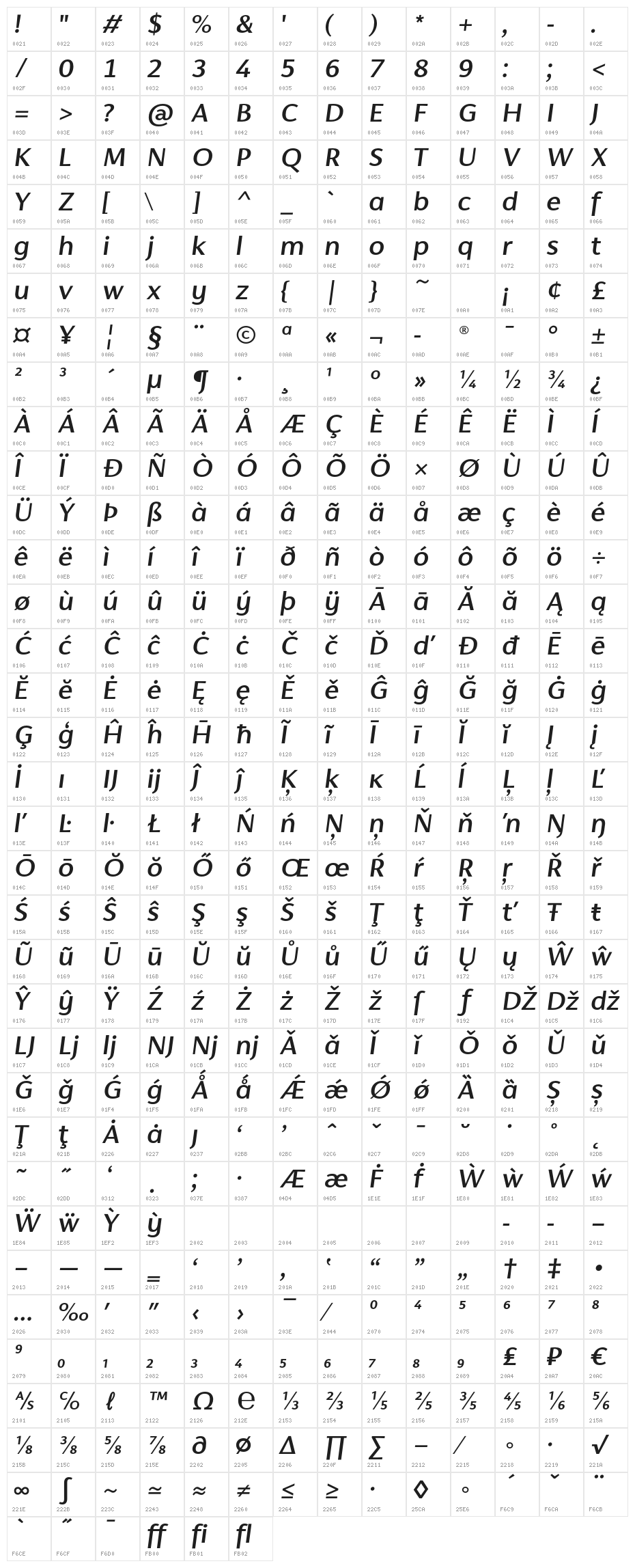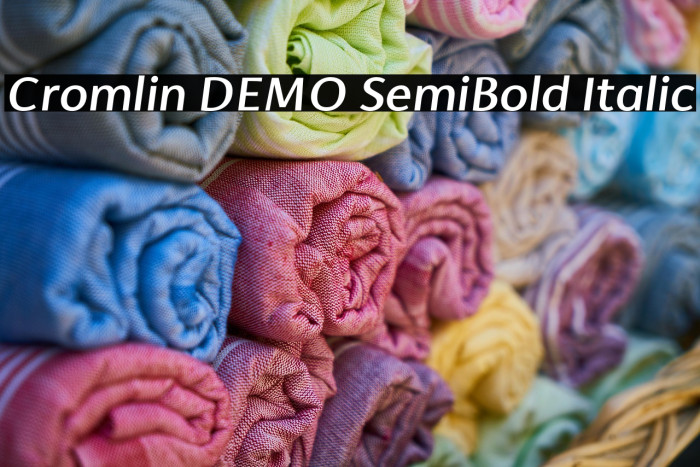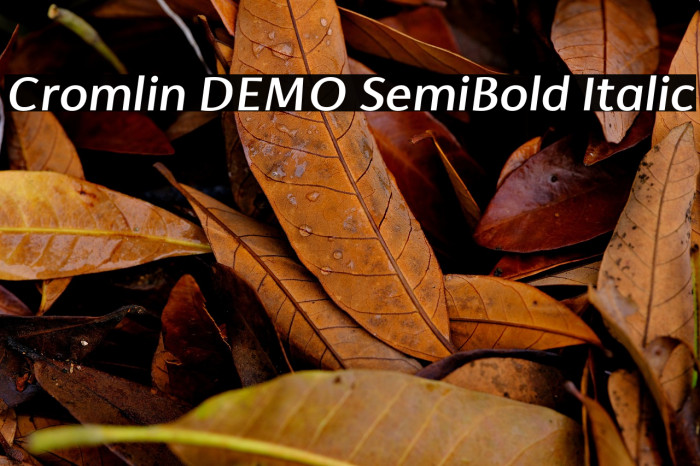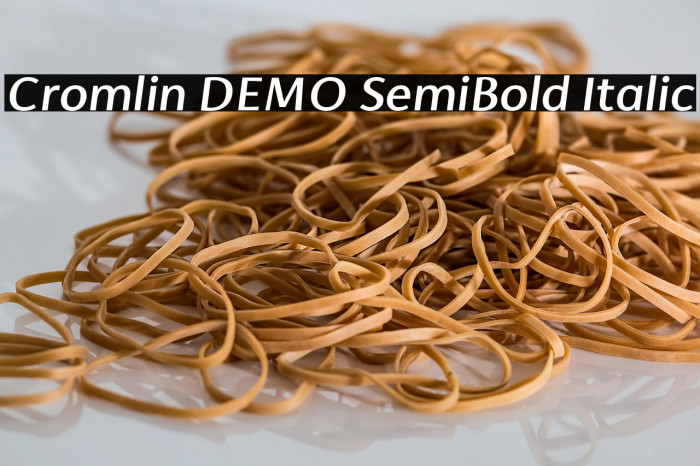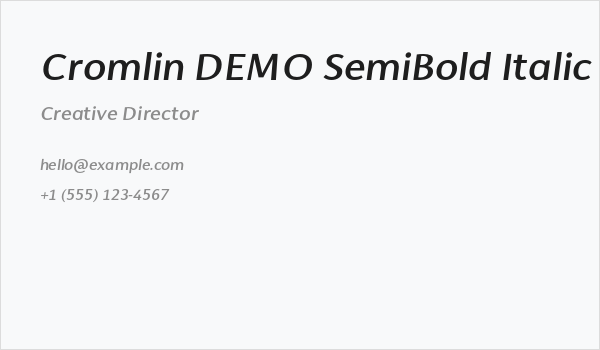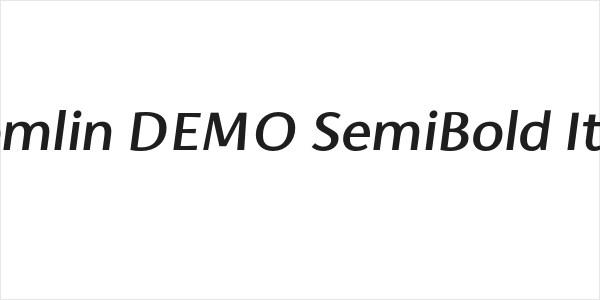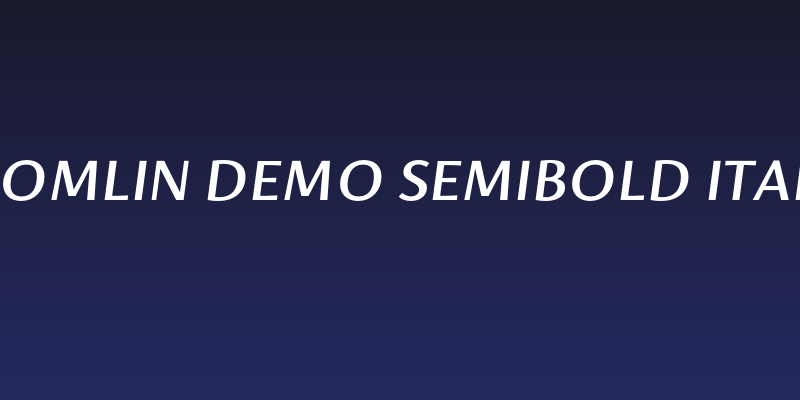
Cromlin DEMO SemiBold Italic Font
Cromlin DEMO SemiBold Italic Description
This font exhibits a modern and sleek design with a semi-bold weight that provides a strong presence while maintaining elegance. The italic style adds a dynamic and forward-leaning appearance, making it suitable for conveying motion or emphasis. The characters are well-proportioned with a slight slant, enhancing readability and giving a sophisticated look. The uppercase and lowercase letters are distinct, with clean lines and smooth curves. The numerals are clear and consistent, matching the overall style. Special characters are well-integrated, maintaining the font's cohesive aesthetic.
| Proposed Projects | Ideal for branding, advertising, and editorial design where a modern and elegant touch is needed. |